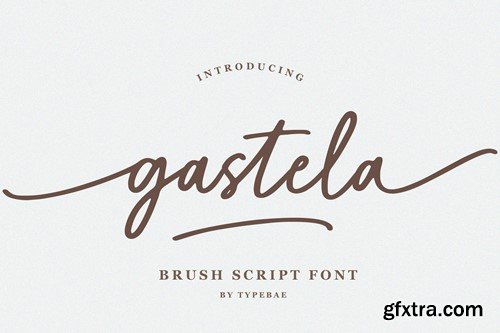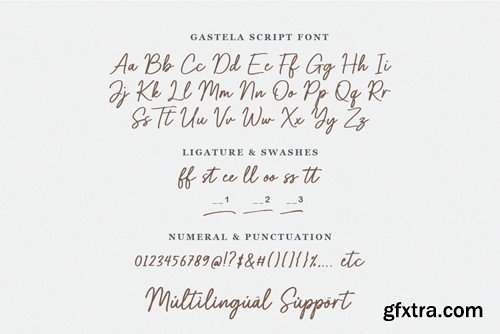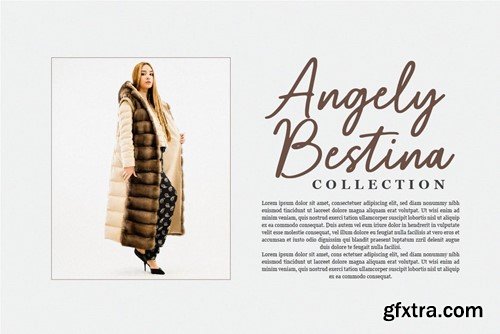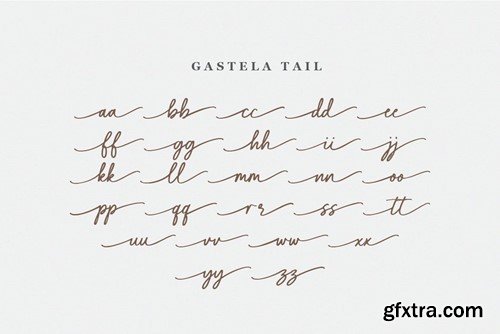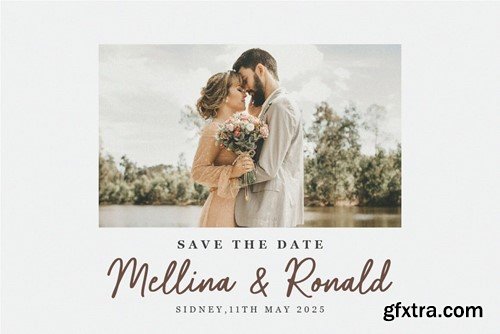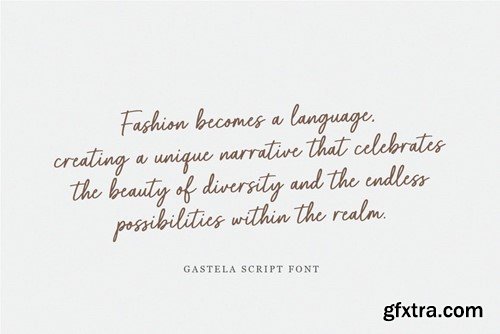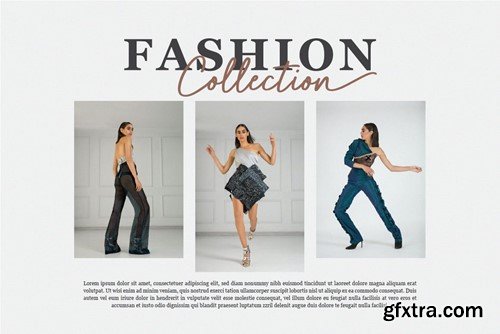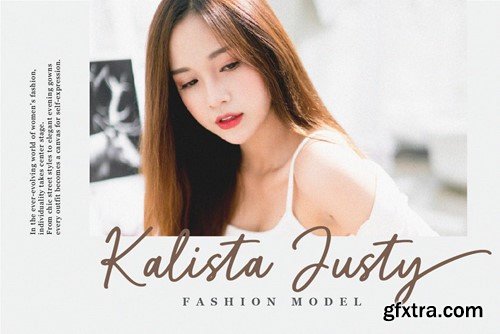
Gastela - Brush Script Font with Swash
Gastela is a beautiful handwritten brush script font that features elegant tails at the beginning and end of each letter. It offers ligatures, enabling certain letter combinations to flow seamlessly for a more natural and authentic appearance. To use beginning and ending swashes (tail), you don't need to use software that supports opentype, because we have made it separately so it's very easy to use. Files included: Feature: Ligature, Stylistic Alternate, Multilingual and PUA encoded.